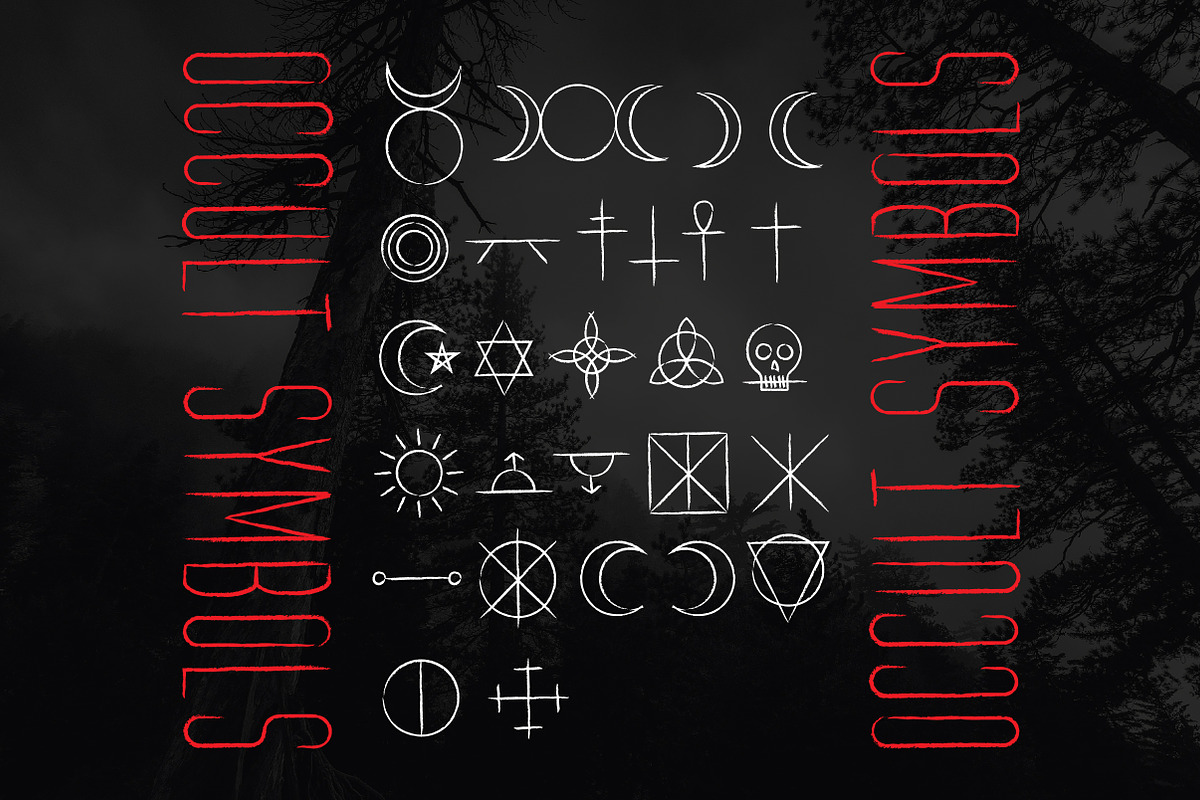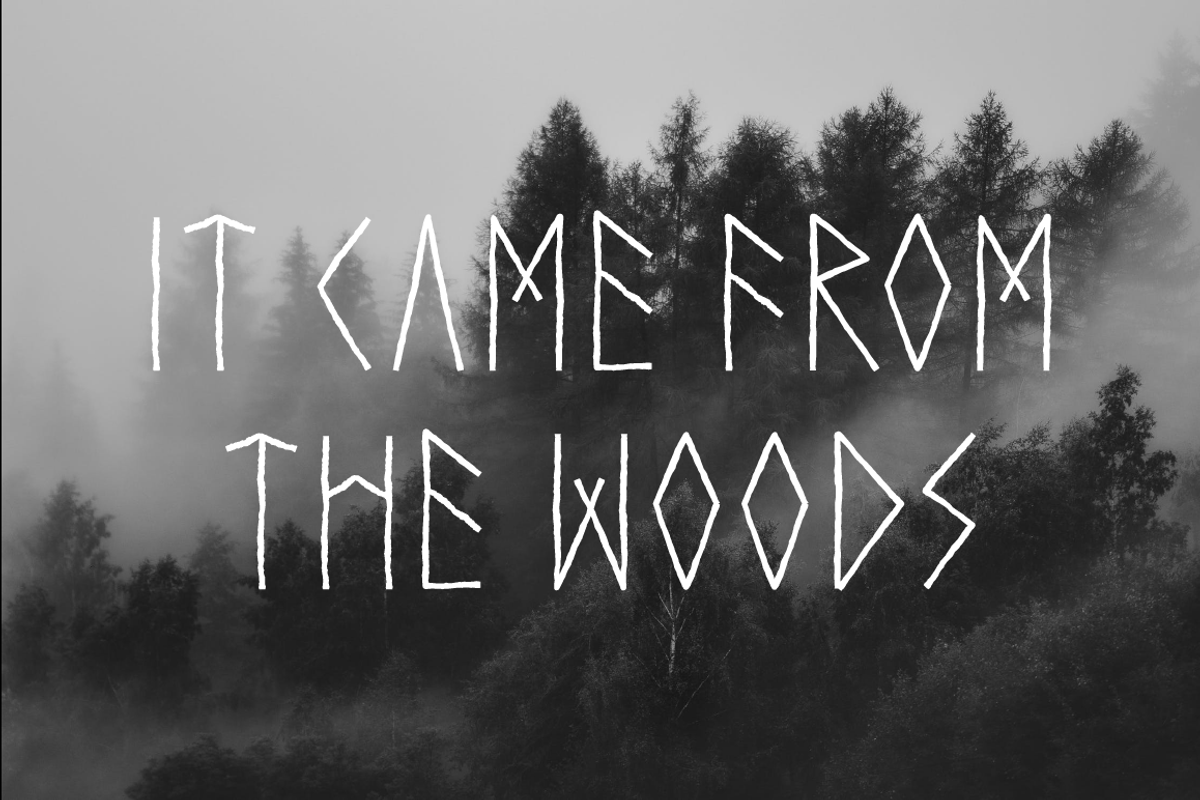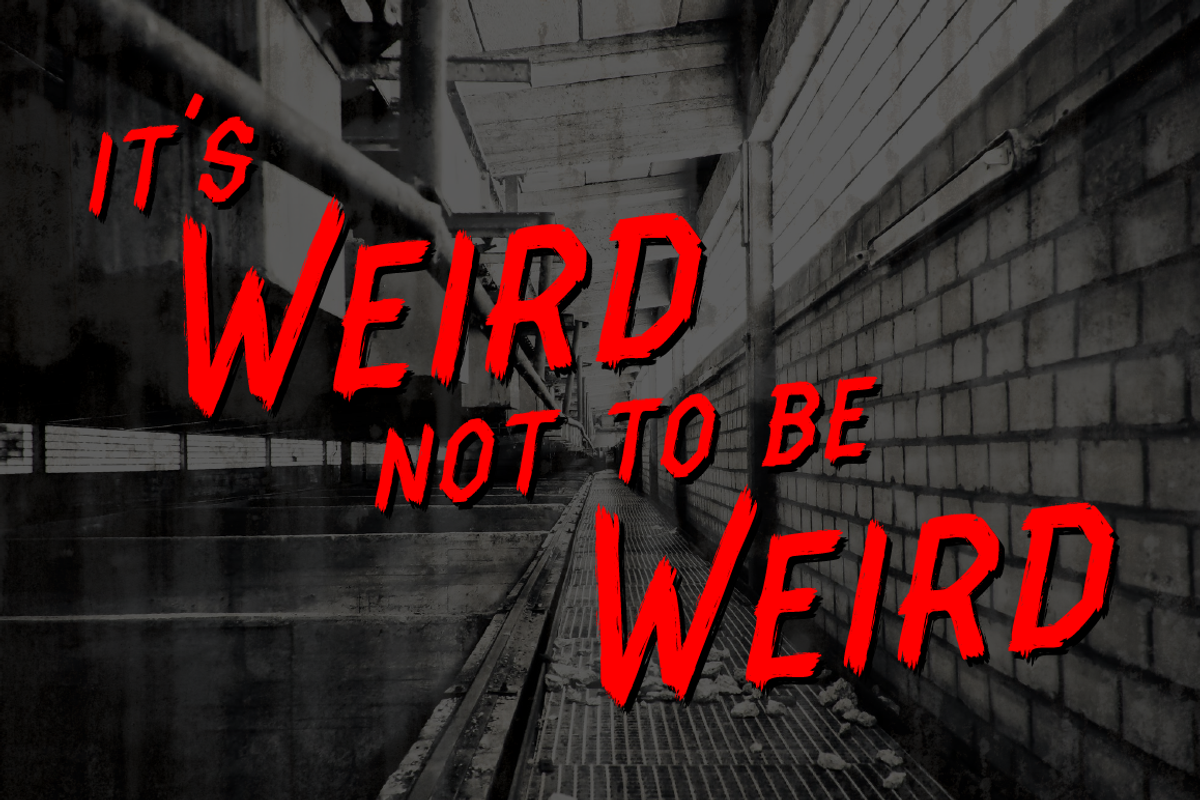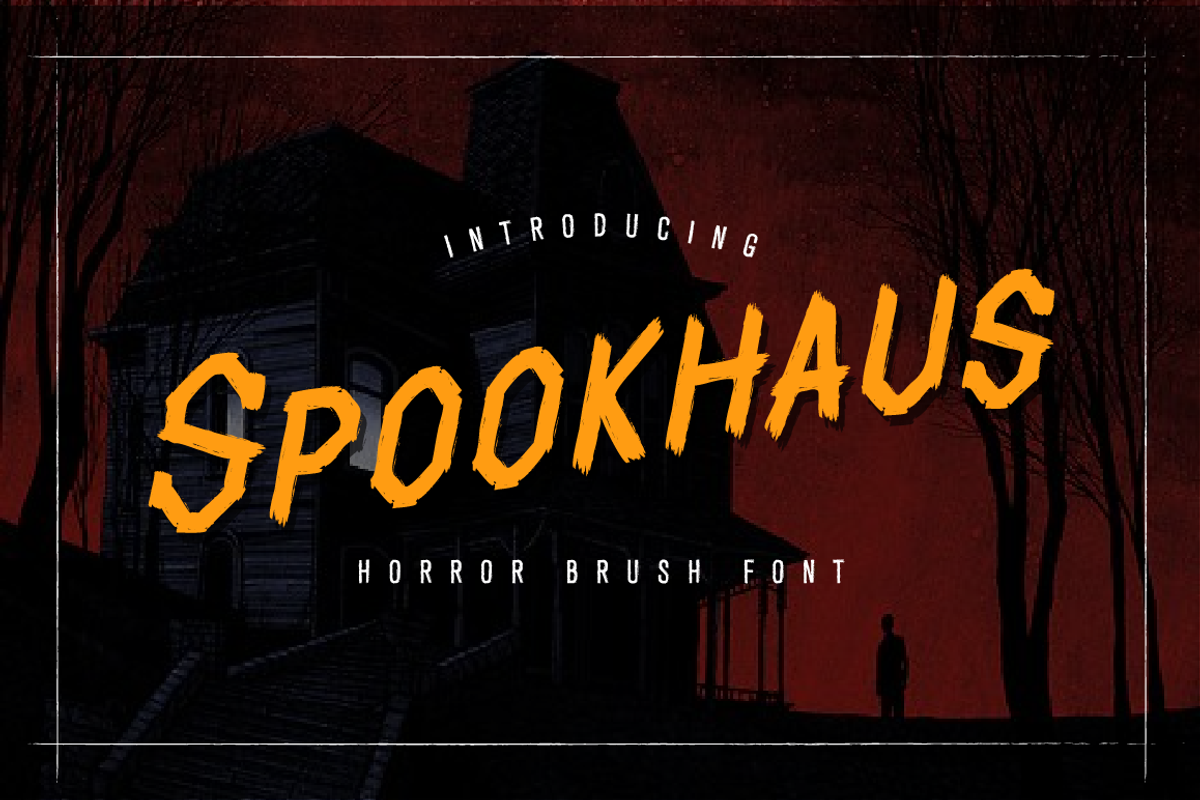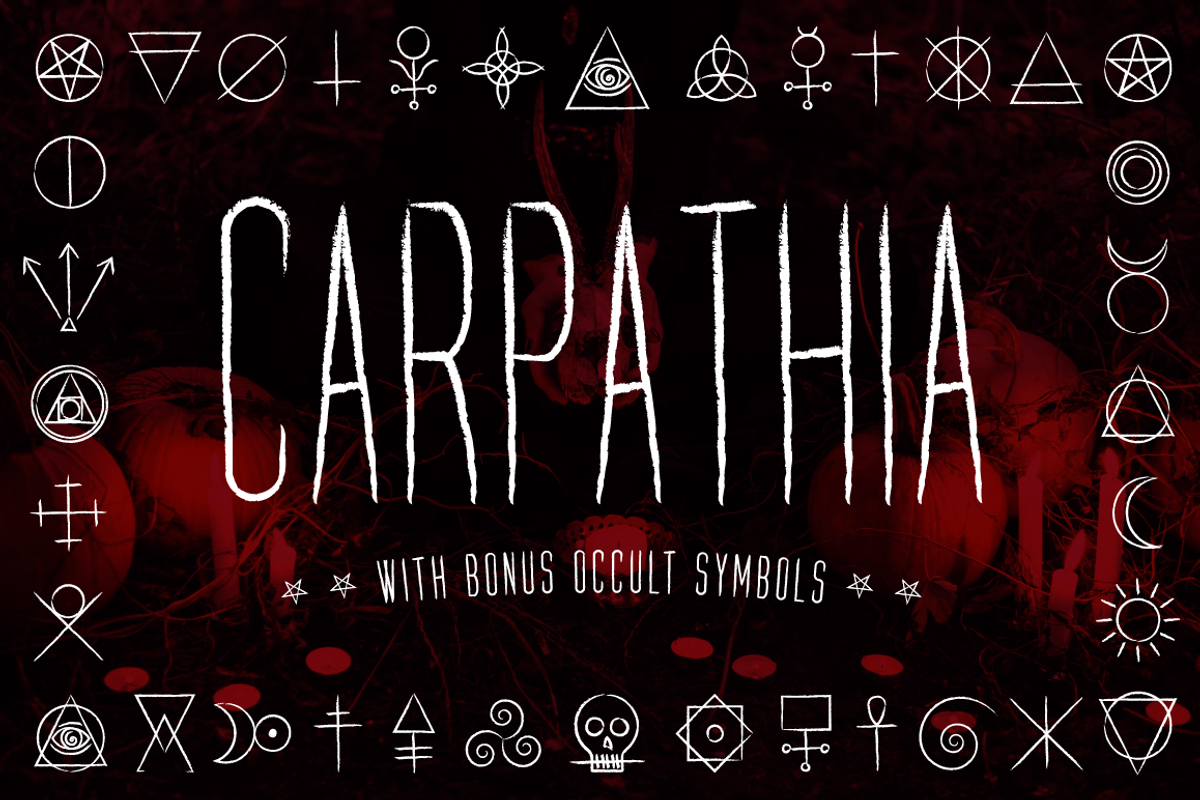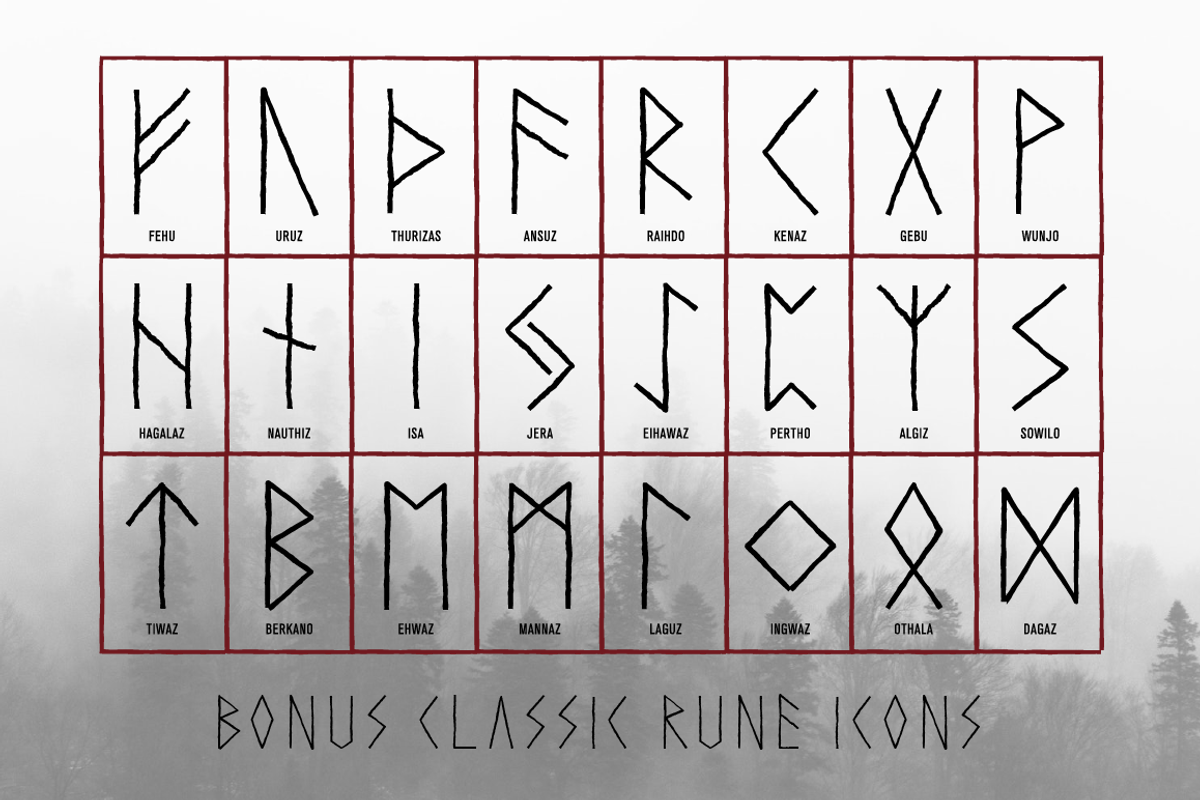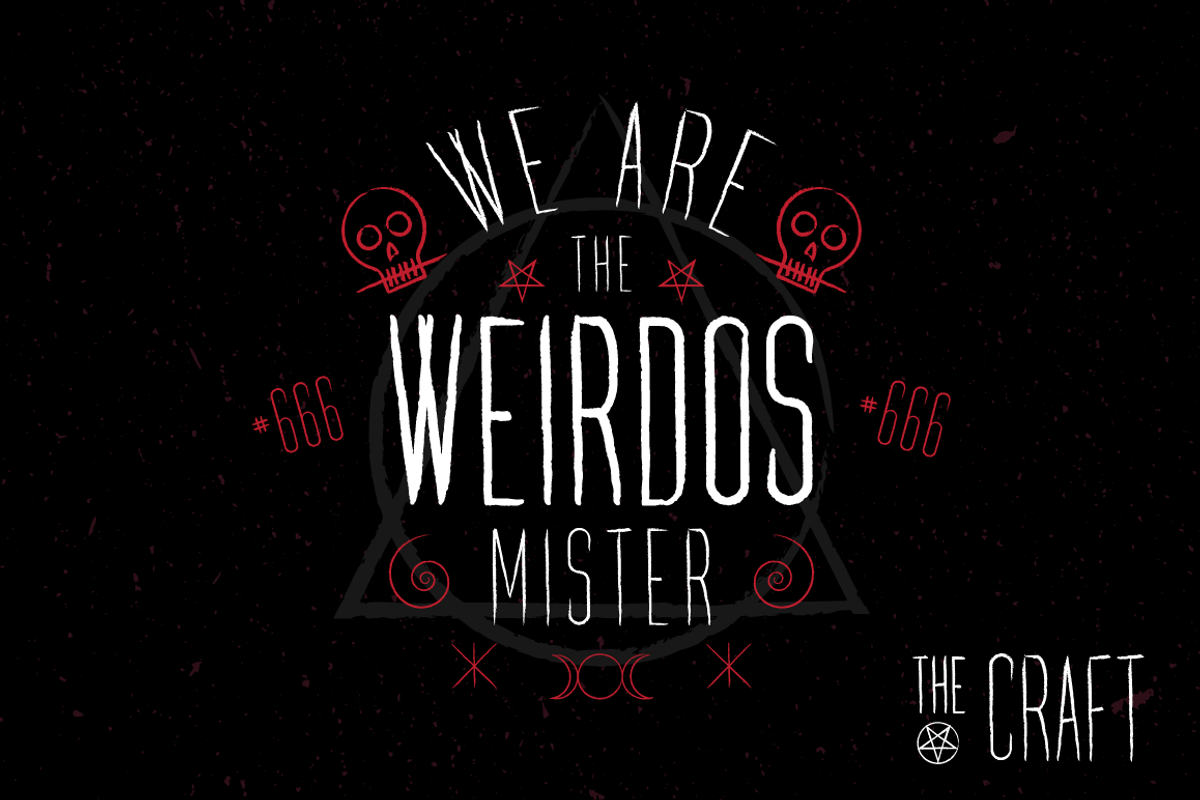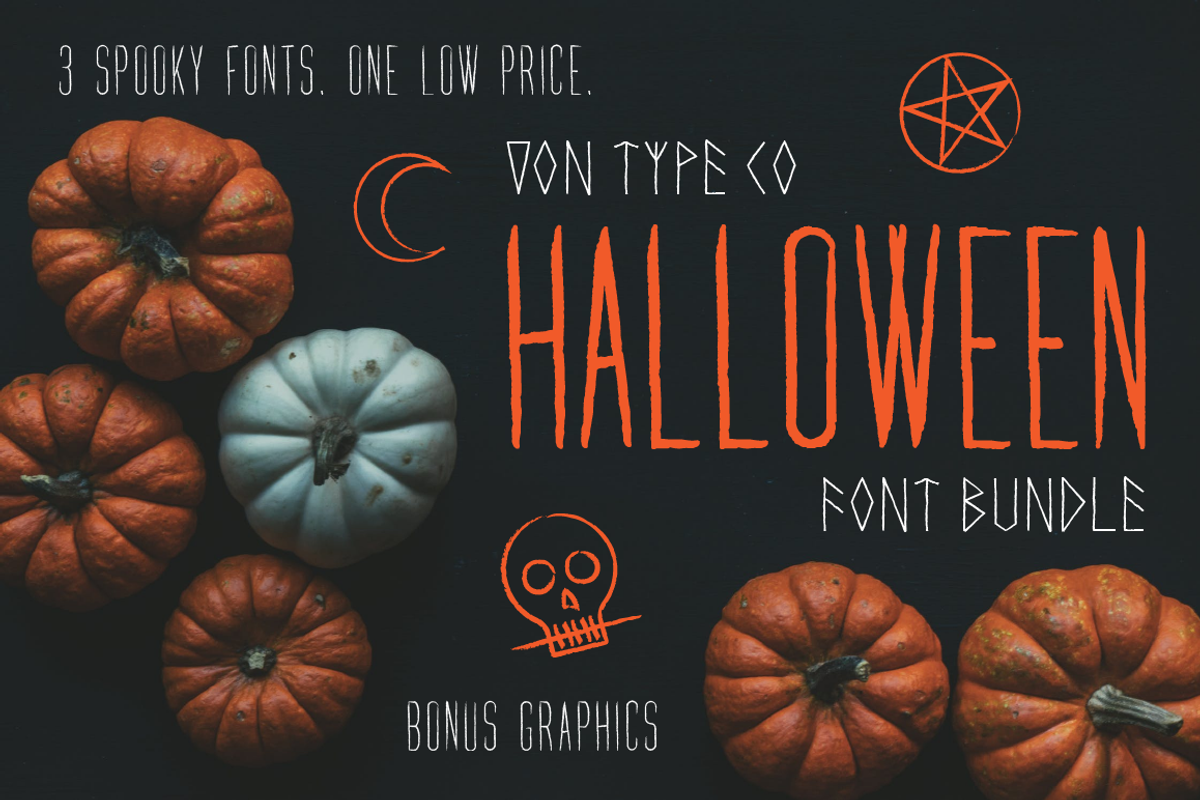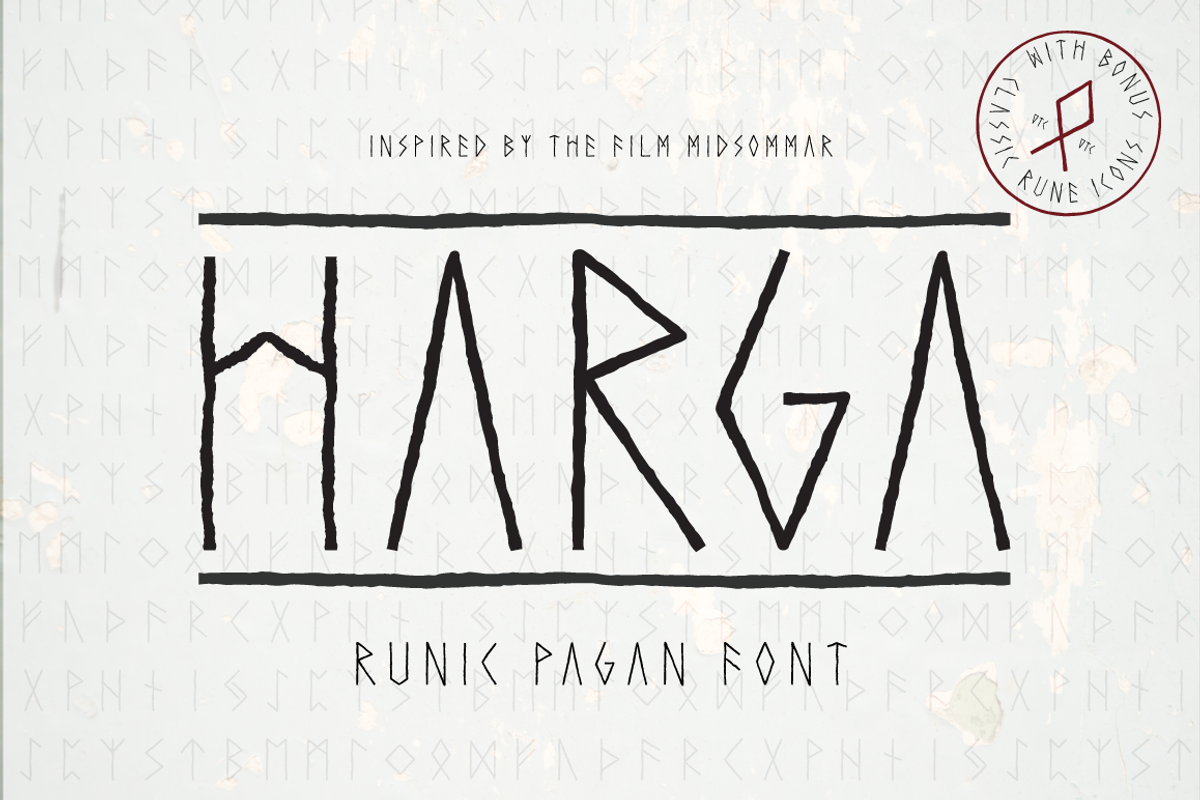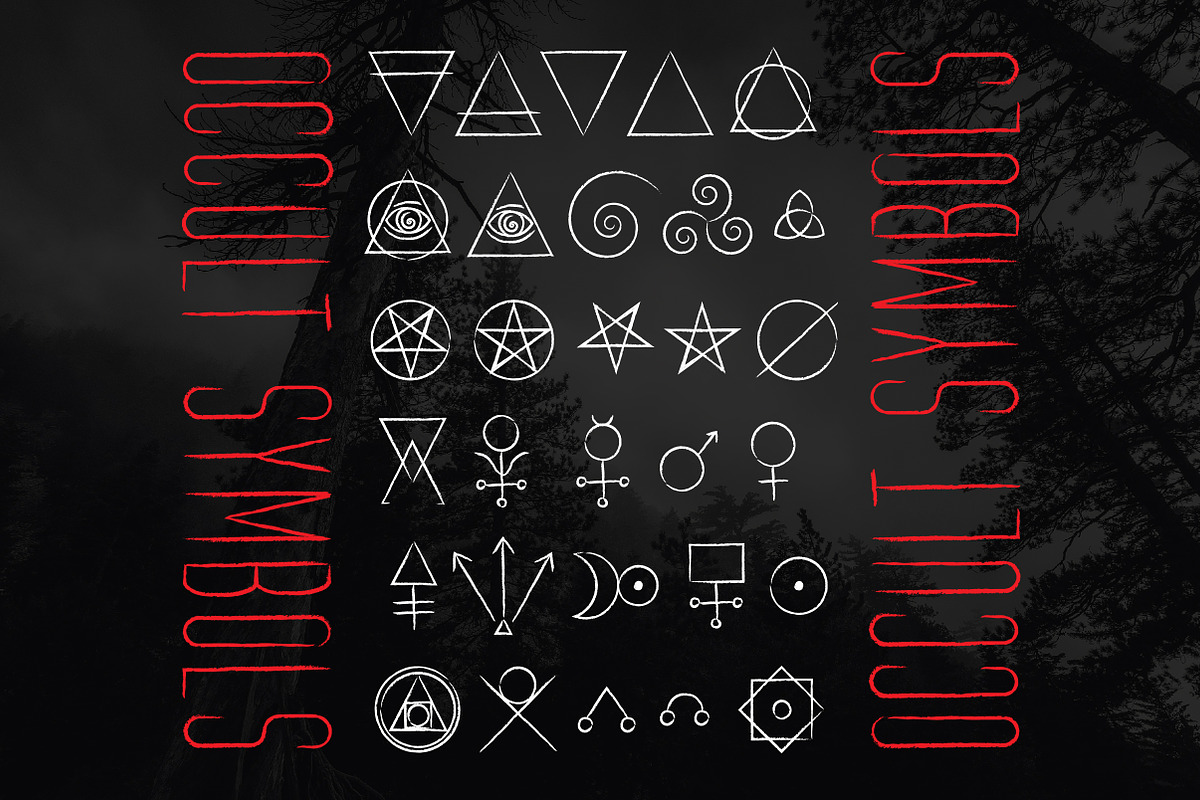
Halloween Font Bundle
Just in time for Halloween!
Introducing our Halloween Font Bundle featuring three distinct horror fonts by Von Type Co in one convenient set, complete with bonus occult graphics and classic rune icons.